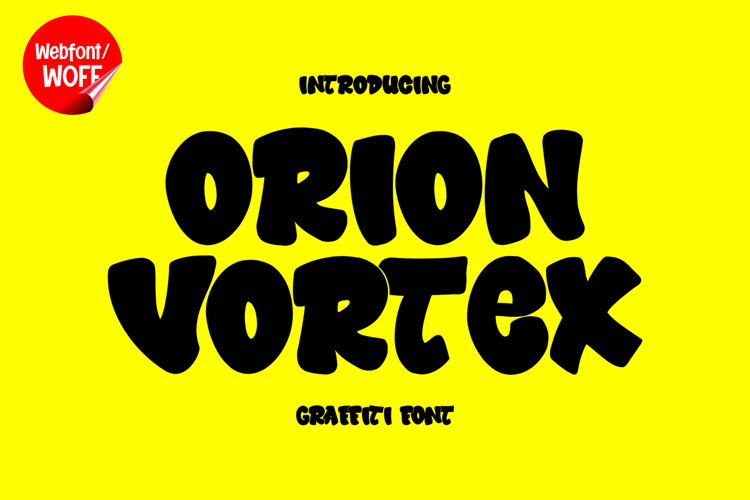
Orion Vortex | Graffiti Webfont for Bold Urban Websites
Orion Vortex is a graffiti webfont designed to deliver bold energy and a striking urban style for modern website design. Inspired by dynamic street lettering, this font features strong shapes and expressive forms that create a powerful visual presence. It is a perfect choice for projects that require a creative, edgy, and attention-grabbing typographic identity.
Orion Vortex includes a complete set of uppercase characters designed with bold graffiti-inspired forms. Each letter is crafted to stand out, combining sharp angles and flowing curves that give the font a dynamic and energetic feel. These letterforms are ideal for headlines, banners, hero sections, and featured content where strong visual emphasis is needed.
In addition to letters, the font includes numbers and punctuation, allowing flexible usage across various parts of a website. It works well for promotional text, event announcements, pricing displays, and navigation highlights. Each character maintains a consistent graffiti style, ensuring a cohesive and unified visual identity throughout the layout.
With multilingual support, Orion Vortex includes a wide range of accented characters, making it suitable for international websites and global audiences. This allows content to be presented clearly across different languages while preserving the bold graffiti aesthetic.
The graffiti style of Orion Vortex makes it especially suitable for urban-themed websites, streetwear brands, music platforms, gaming interfaces, and creative portfolios. Its expressive and bold design adds personality and movement, helping websites stand out in competitive digital spaces. The unique letterforms also enhance branding and visual storytelling.
Despite its bold and artistic style, Orion Vortex is designed with readability in mind. The spacing and structure of each character are carefully balanced to ensure clarity, particularly in display sizes. This makes it effective for impactful headings and short content elements where both style and usability are important.
Orion Vortex is a webfont that combines graffiti creativity with modern digital functionality. Its strong shapes, dynamic flow, and urban influence create a distinctive typographic presence that enhances website design. For projects that require bold expression, creative energy, and a street-inspired look, Orion Vortex offers a powerful and engaging solution.